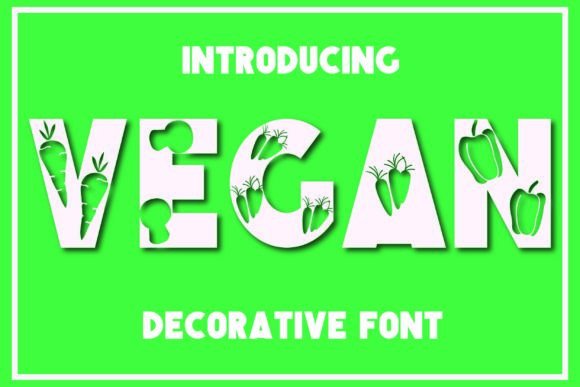
Journey into the world of Vegan Font, where nature's charm meets digital artistry. This delightful decorative font, crafted by CHEETAH DOODLE, is a feast for the eyes, bursting with vibrant vegetable and fruit elements that dance across your designs.
Vegan Font is more than just a collection of characters; it's an invitation to unleash your creativity and let your imagination run wild. Its playful personality is perfect for food-related projects, whether you're designing logos, menus, packaging, or social media graphics. Picture your words adorned with tiny tomatoes, cheerful carrots, crisp lettuce, and a symphony of other garden goodies.
With Vegan Font, your designs will exude a sense of freshness, health, and vitality. Its playful spirit is contagious, inviting your audience to indulge in the joy of nature's bounty. Let your designs bloom with the beauty of Vegan Font, and watch as your creations captivate and inspire.
But Vegan Font's magic extends beyond food-related endeavors. Its whimsical charm lends itself effortlessly to nature-inspired projects, invitations, greeting cards, and any design where a touch of whimsy is desired. Imagine your words adorned with delicate flowers, playful butterflies, and a chorus of woodland creatures.
Vegan Font possesses an uncanny ability to transform the ordinary into the extraordinary. Its intricate details and cheerful spirit bring life to any project, leaving a lasting impression on your audience. Join the growing community of designers who have embraced Vegan Font's allure and witnessed the transformative power it brings to their creative endeavors.
So, embark on this delightful journey with Vegan Font, and let your designs flourish with the beauty of nature. Its vibrant energy and captivating charm will elevate your projects to new heights, leaving your audience enchanted and inspired.